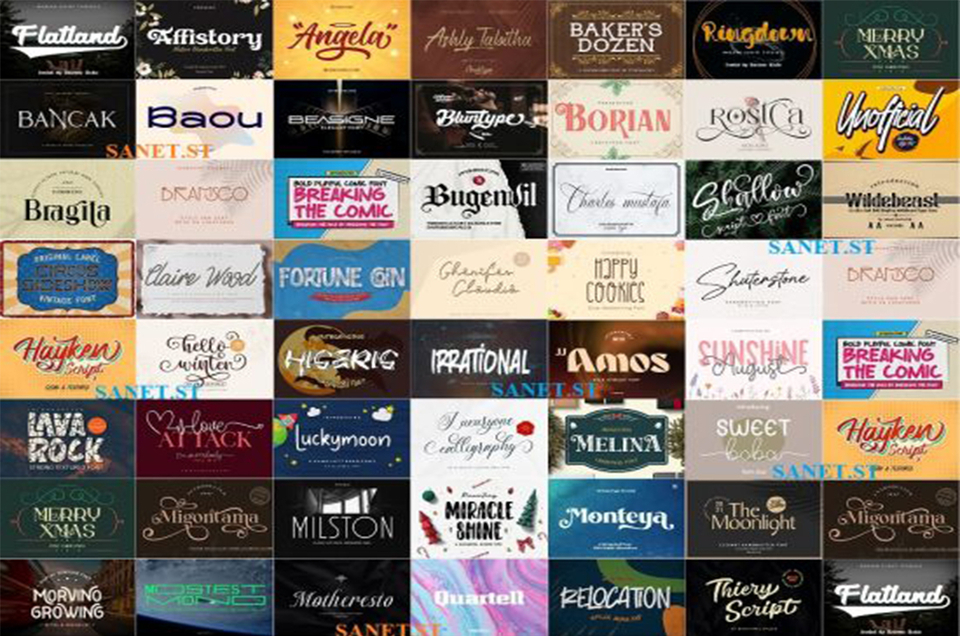
50 Various Font Bundle, calligraphy Bundle
This bundle containing best selling items! Most fonts in this bundle are recommended for display, headline or titling. Other items also good for body text and editorial.